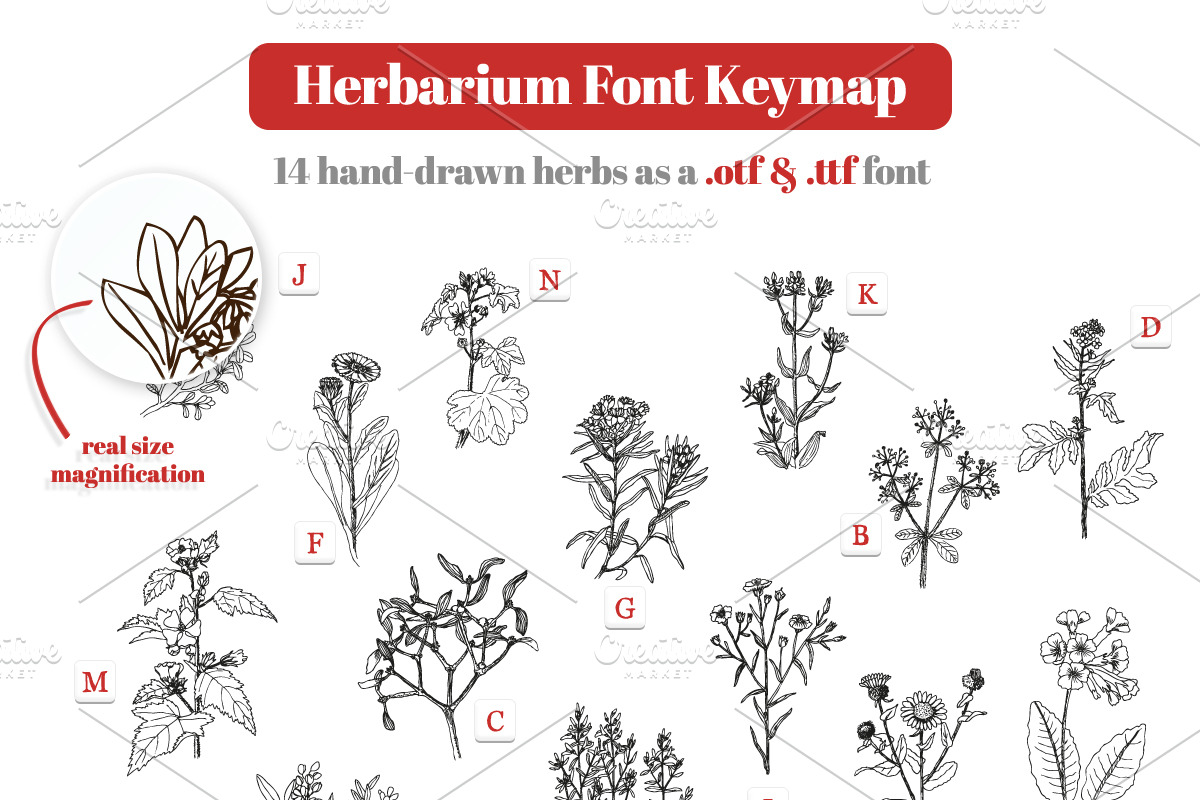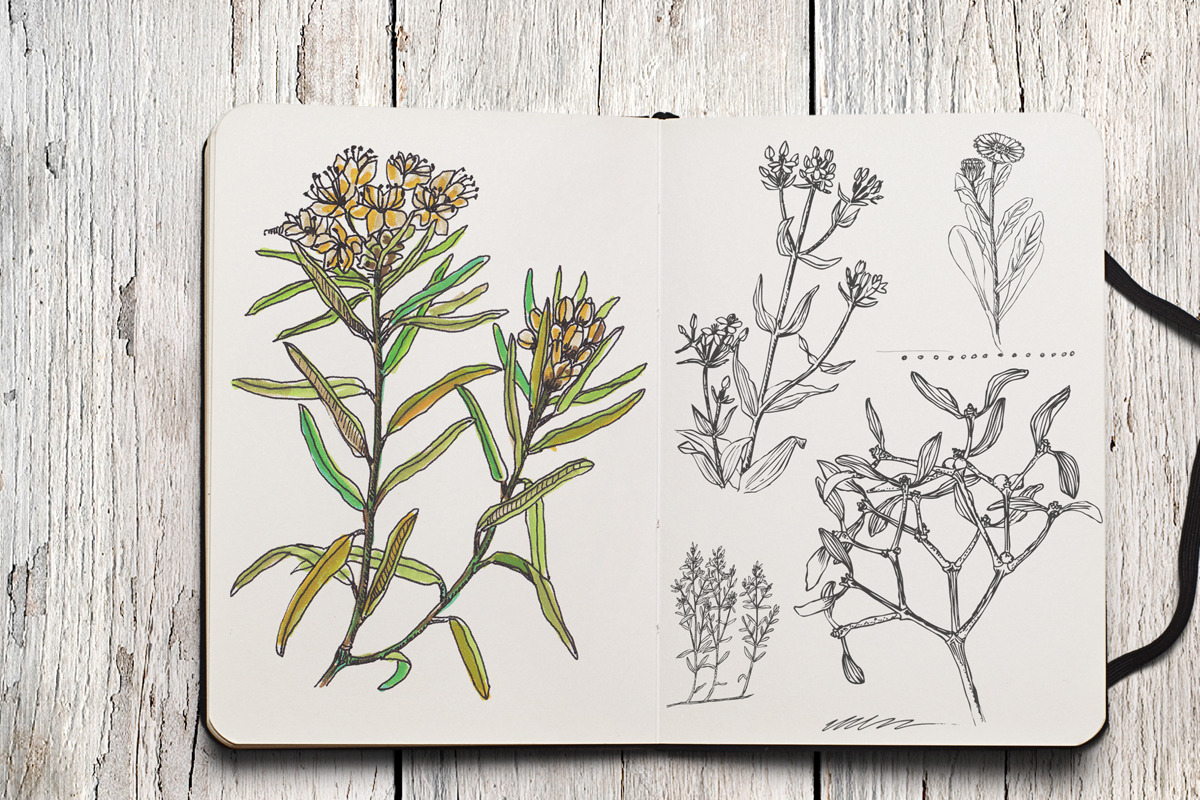
Herbarium Font
Herbarium Font by Frisk Shop is a font selected for branding, posters, packaging, typography.
- Herbs are great addition to your website, poster, card, package, illustration and many others.
Herbarium Font by Frisk Shop fits naturally into Branding, posters, packaging, typography.